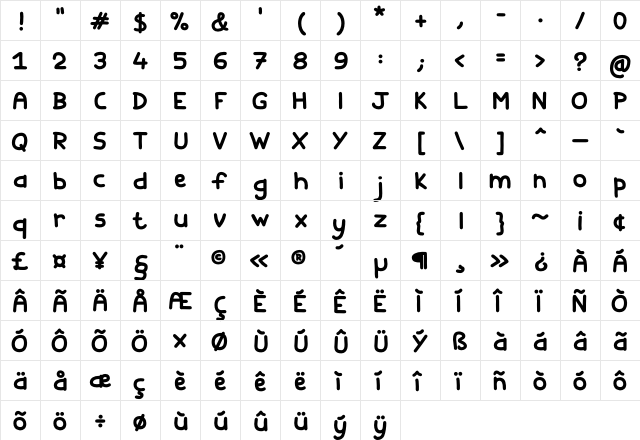
Fishes Friends Bold
Design Context for Fishes Friends Typeface
Fishes Friends takes a measured approach to typography — its balanced proportions and neutral character make it a reliable workhorse for both digital and print work. Its bold stroke weight gives it real presence on the page.